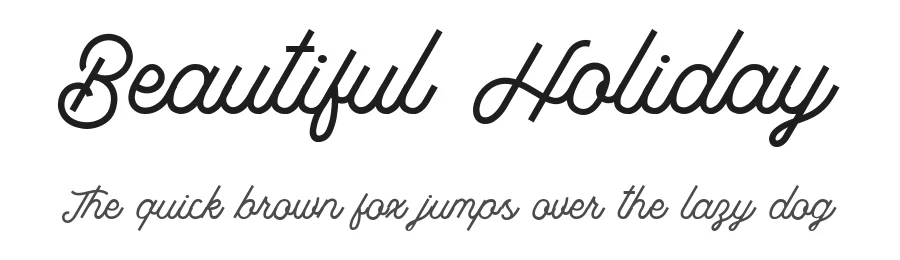
About Colombia Font
Colombia is a script font monoline typeface, with rounded edges and clean styles. It is perfect for logo designs, and small amounts of text. The font includes an uppercase, lowercase alphabet, numbers, common symbols, and ligature.
| Designer | fitra dwivani |